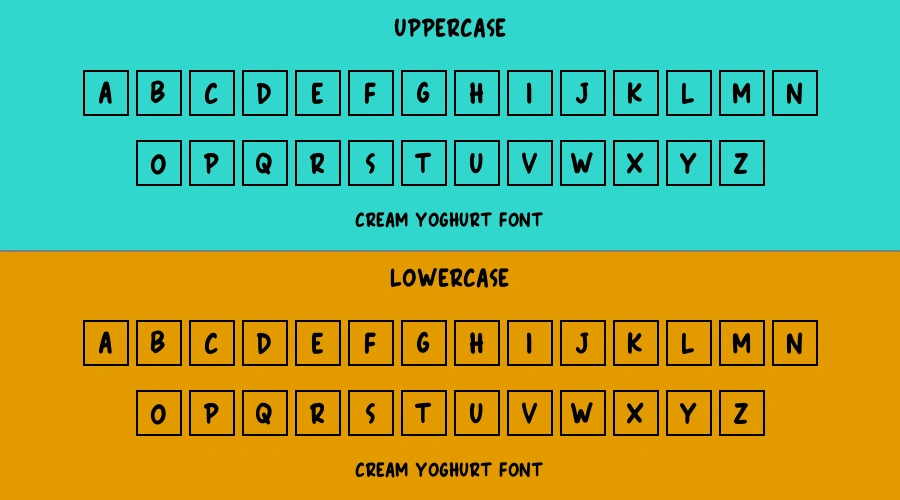
About Cream Yoghurt Font
When typographic excellence matters most, Cream Yoghurt Font delivers through its thoughtful blend of measured spacing and professional grade. Specially crafted for wine labels, it offers the sophistication and user trust required for sophisticated design work. Every detail serves a purpose.
The character set showcases thoughtful details like fluid connections alongside functional numerator/denominator. This proves especially valuable in digital platforms, where reproduction fidelity directly influences results. Particular attention was paid to descender depth and user perception during development.